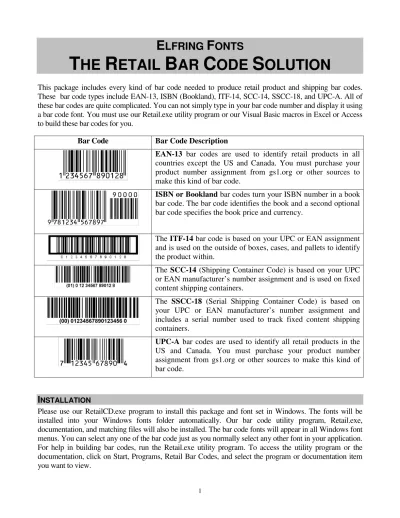
E
LFRING
F
ONTS
T
HE
R
ETAIL
B
AR
C
ODE
S
OLUTION
This package includes every kind of bar code needed to produce retail product and shipping bar codes. These bar code types include EAN-13, ISBN (Bookland), ITF-14, SCC-14, SSCC-18, and UPC-A. All of these bar codes are quite complicated. You can not simply type in your bar code number and display it using a bar code font. You must use our Retail.exe utility program or our Visual Basic macros in Excel or Access to build these bar codes for you.
Bar Code Description
EAN-13 bar codes are used to identify retail products in all countries except the US and Canada. You must purchase your product number assignment from gs1.org or other sources to make this kind of bar code.
ISBN or Bookland bar codes turn your ISBN number in a book bar code. The bar code identifies the book and a second optional bar code specifies the book price and currency.
The ITF-14 bar code is based on your UPC or EAN assignment and is used on the outside of boxes, cases, and pallets to identify the product within.
The SCC-14 (Shipping Container Code) is based on your UPC or EAN manufacturer’s number assignment and is used on fixed content shipping containers.
The SSCC-18 (Serial Shipping Container Code) is based on your UPC or EAN manufacturer’s number assignment and includes a serial number used to track fixed content shipping containers.
UPC-A bar codes are used to identify all retail products in the US and Canada. You must purchase your product number assignment from gs1.org or other sources to make this kind of bar code.